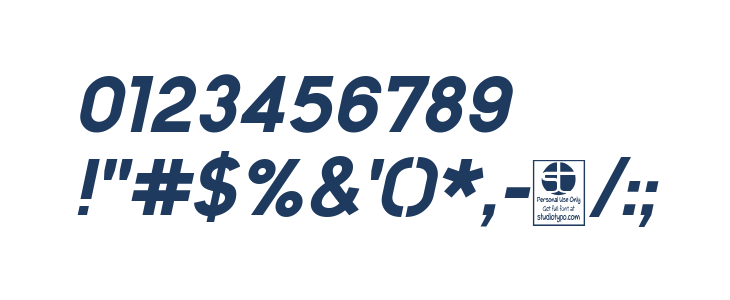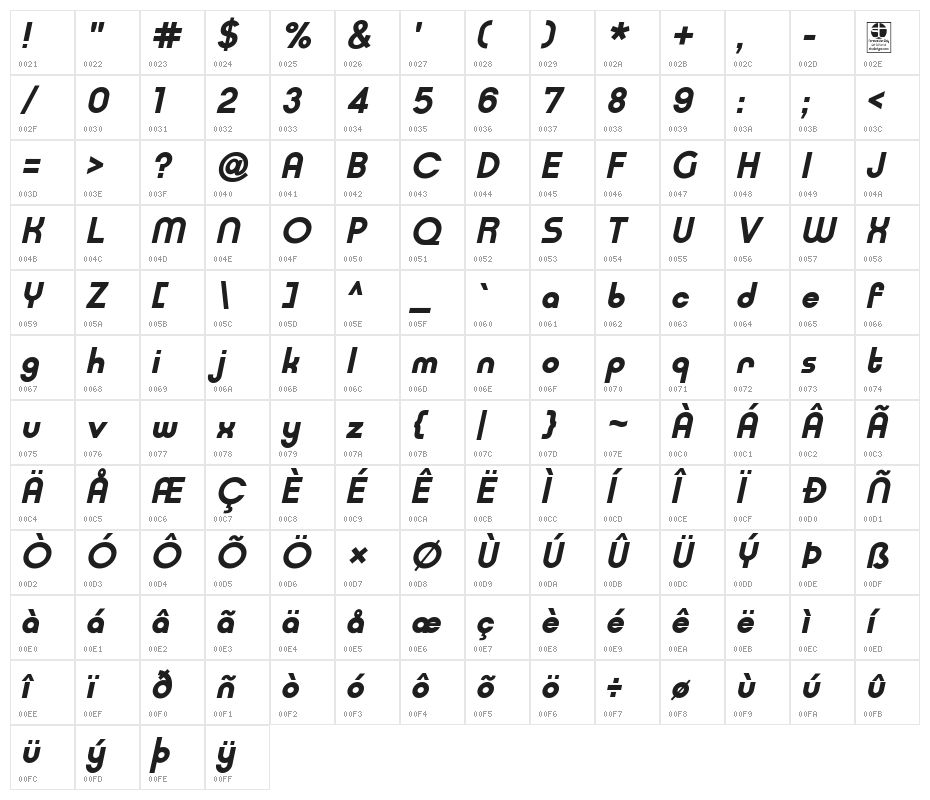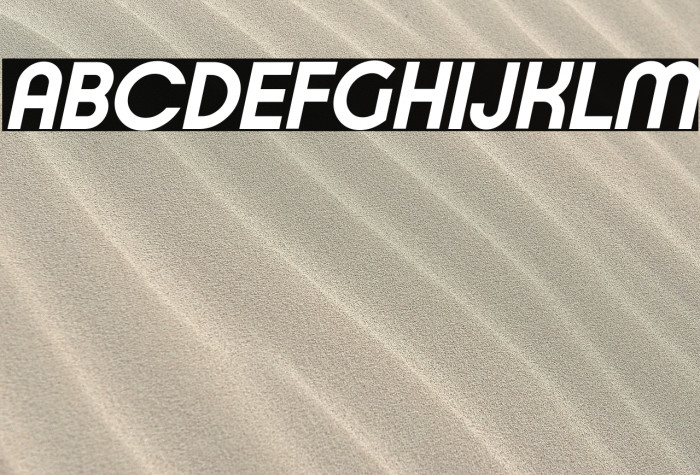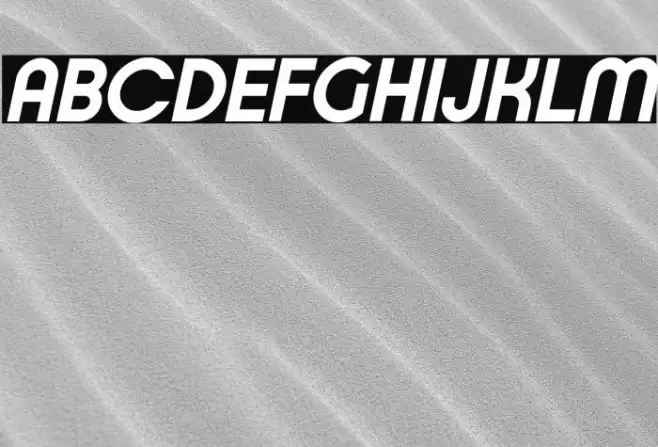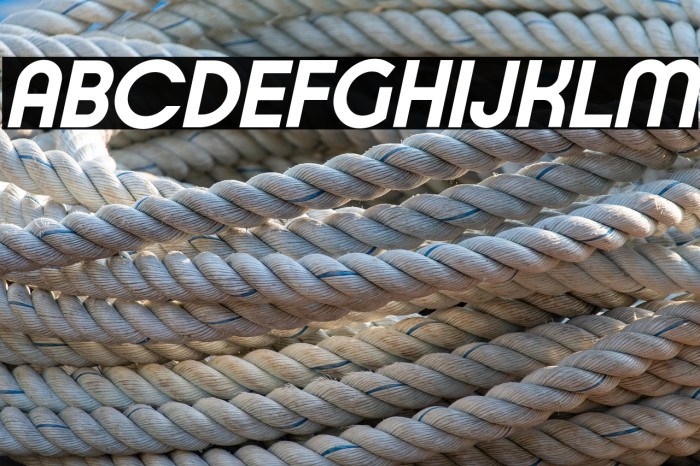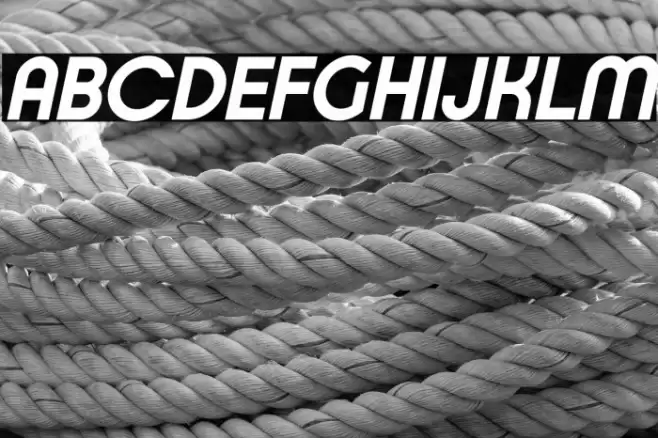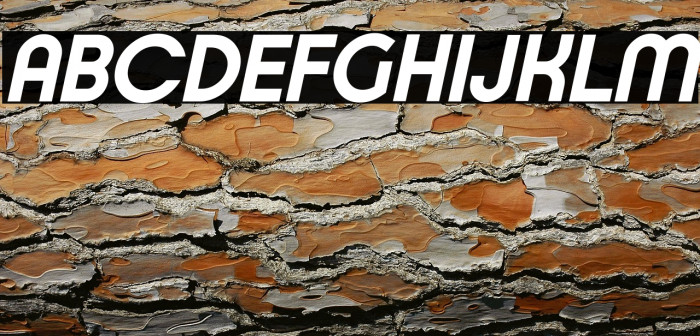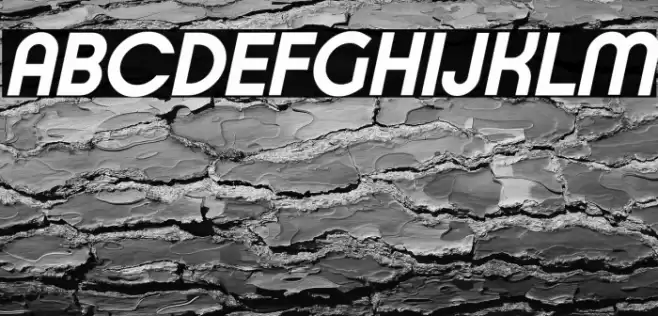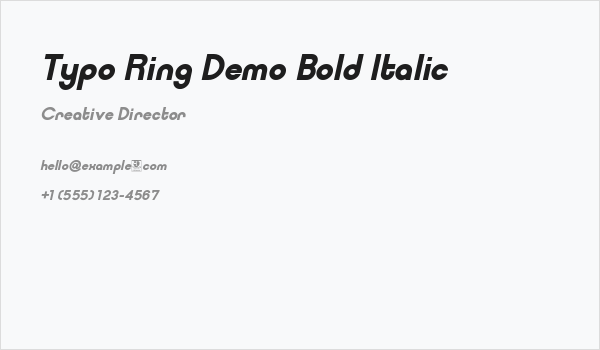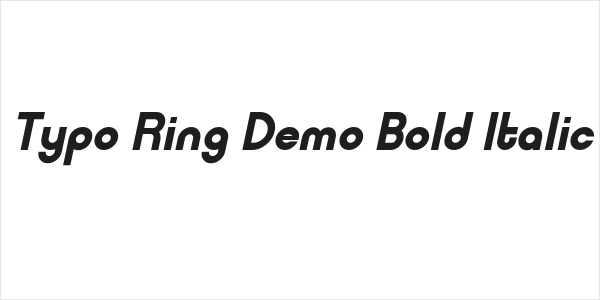
Typo Ring Demo Bold Italic Font
Typo Ring Demo Bold Italic Description
This font features a bold and italic style with a modern and dynamic appearance. The characters are slightly slanted, giving them a sense of motion and energy. The strokes are thick and consistent, providing a strong visual impact. The uppercase and lowercase letters are well-proportioned, maintaining readability while adding a touch of elegance. The numerals are clear and distinct, matching the overall boldness of the font. Special characters are included, enhancing its versatility for various design needs. The font's design is suitable for projects that require a contemporary and assertive look.
| Proposed Projects | Ideal for branding, headlines, posters, and advertising materials that need a strong and modern appeal. |